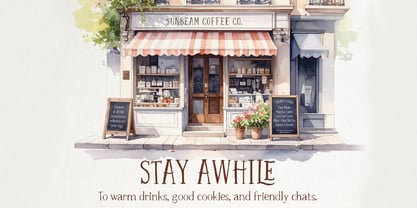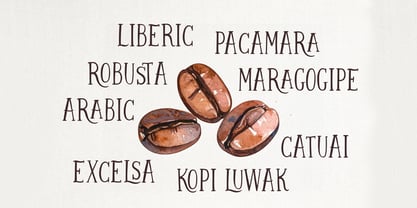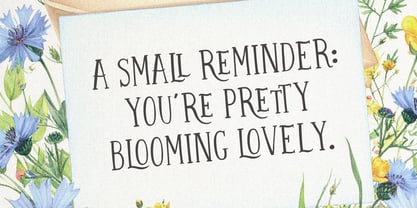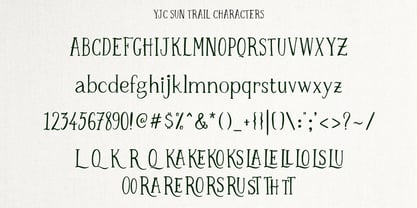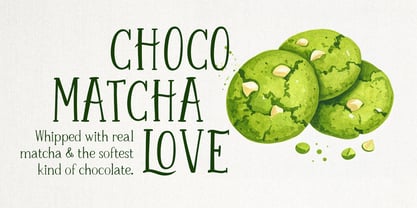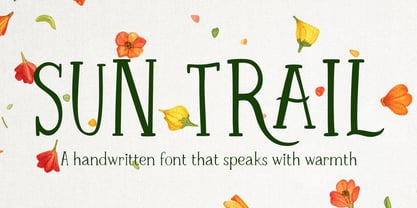
YJC Sun Trail
YJC Sun Trail is a handwritten font made for moments that matter — the soft hello, the kind reminder, the branding that wants to feel a little more like a person and a little less like a pitch.
Crafted with steady strokes, gentle curves, and a relaxed rhythm, Sun Trail is warm without being messy, clear without being cold. It’s the kind of typeface that knows when to speak up and when to let the design breathe.
With a library of custom ligatures, Sun Trail adds natural movement to your lettering, making your words feel thoughtful, connected, and human — whether you're designing a logo, a cookie label, or the world’s kindest quote post.
1. Full uppercase + lowercase A–Z
2. Numbers, punctuation, symbols
3. 20+ discretionary ligatures for smooth lettering flow
4. Multilingual support